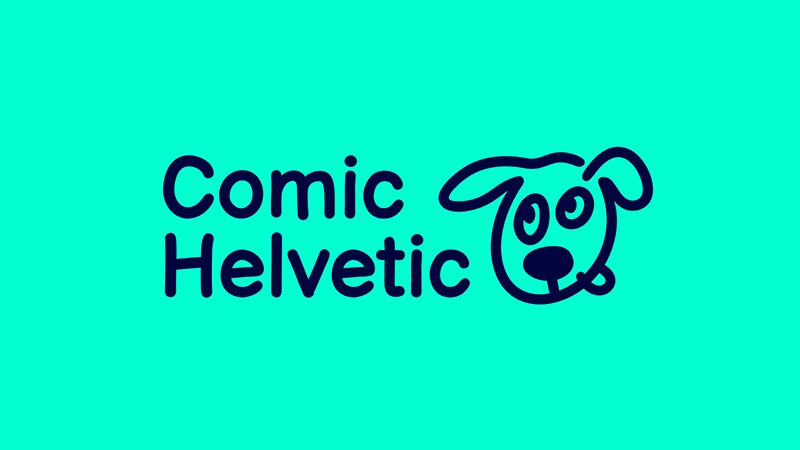
Comic Helvetic is an experimental project inspired by Comic Sans and Helvetica. Comic Helvetic was created for a cartoon dog named Hover:
Typeface has Extended Latin and Cyrillic characters.
Comic Helvetic